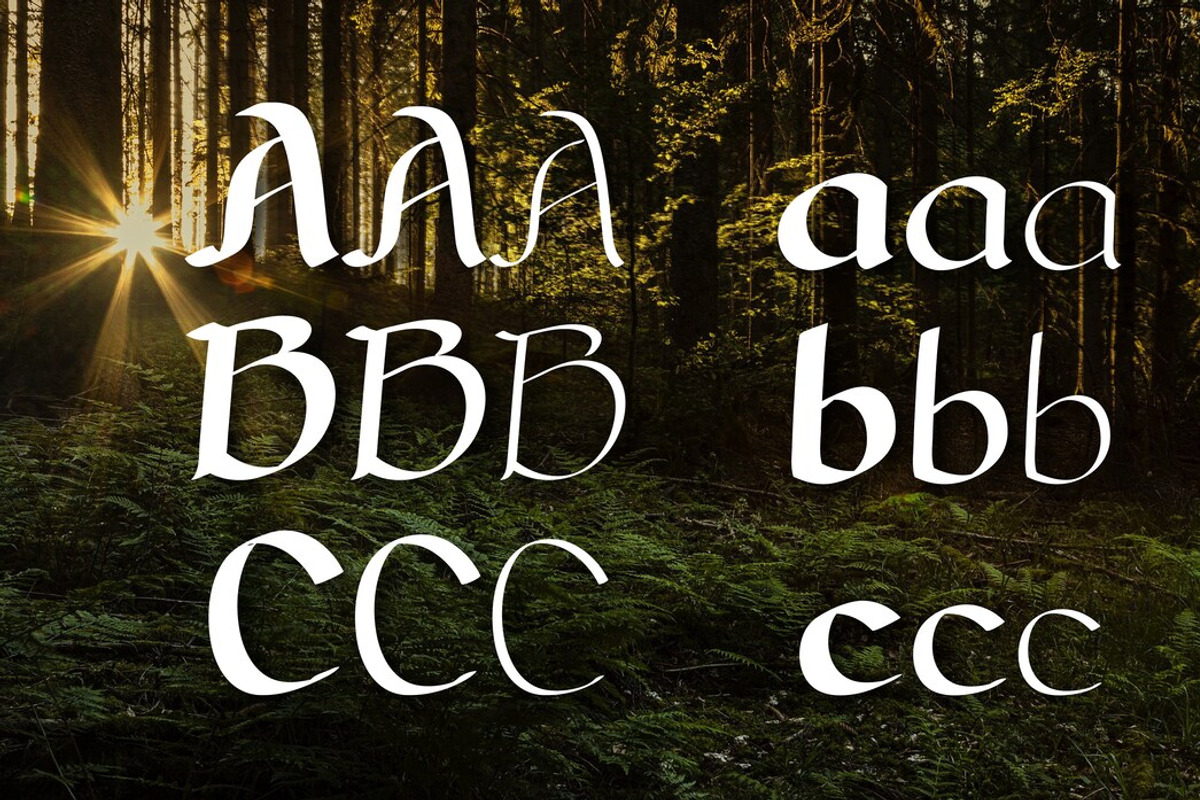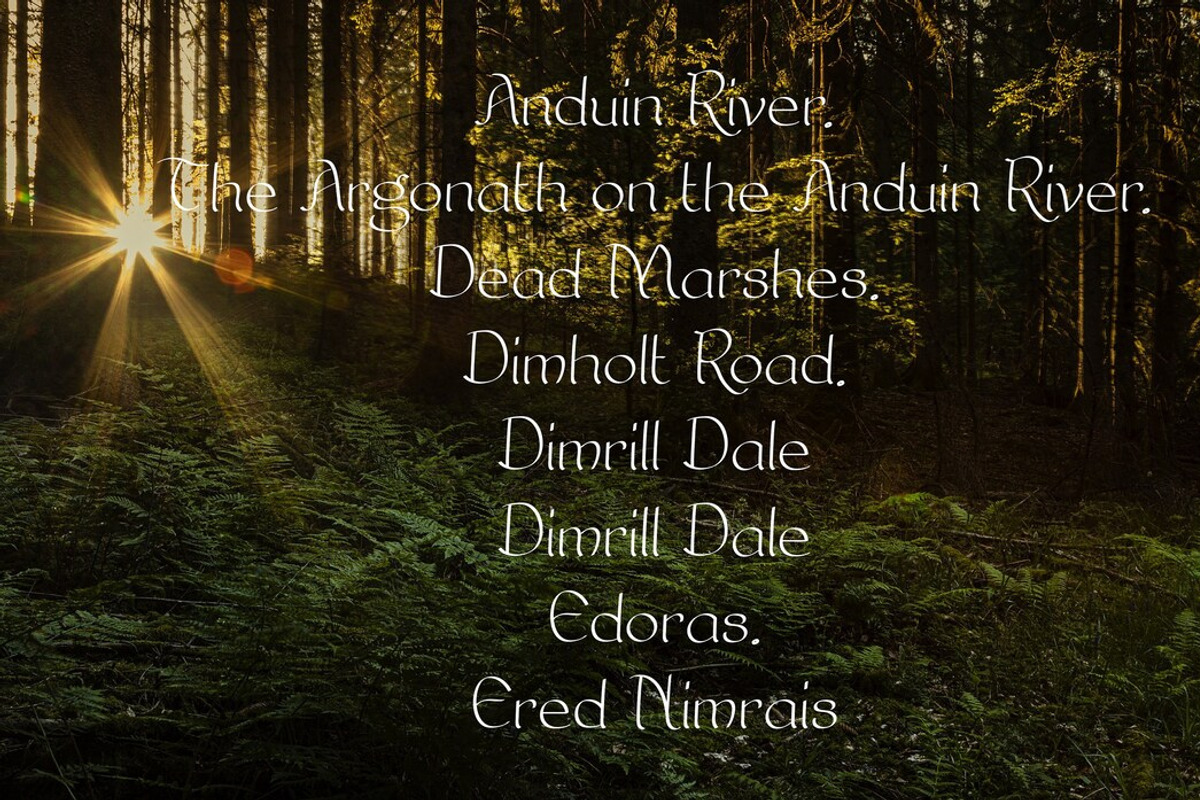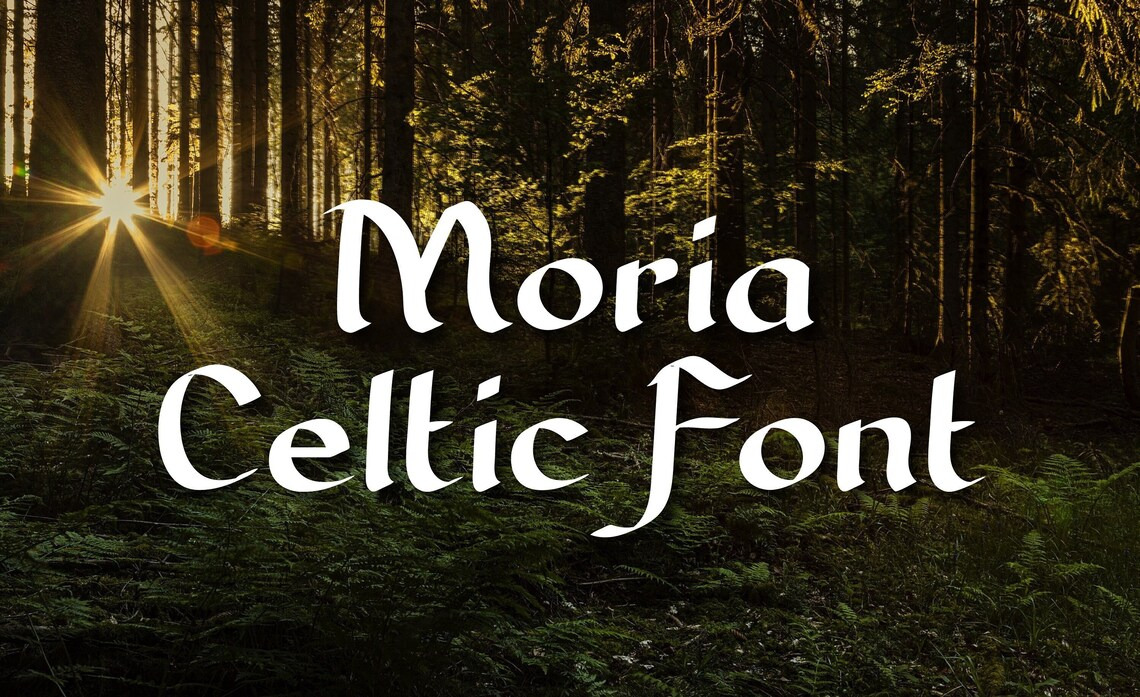
Celtic Script Font 'Moria'
Thick, thin and regular. Moria is a celtic script style font. It's perfect for games, capturing heritage, fiction or even at home wall murals. Your imagination is the limit.